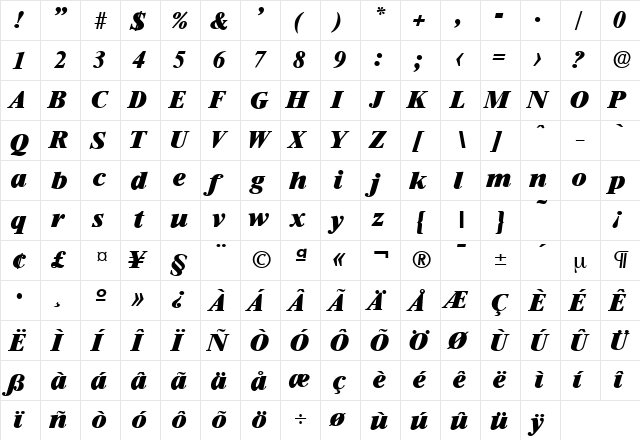
Riccione-Serial-Heavy RegularItalic
Design Context for Riccione-Serial-Heavy Typeface
Riccione-Serial-Heavy is a composed and adaptable typeface that performs quietly and consistently across a wide range of design contexts. The dynamic lean of this cut emphasises speed and emphasis in any layout.
Pro Tip: Try Riccione-Serial-Heavy for annotation and caption copy alongside an upright companion — the contrast in angle creates a dynamic but ordered typographic system.